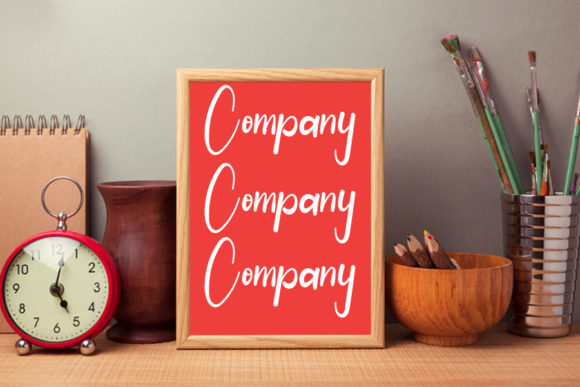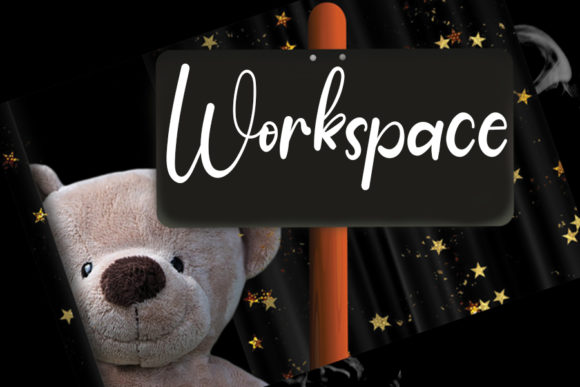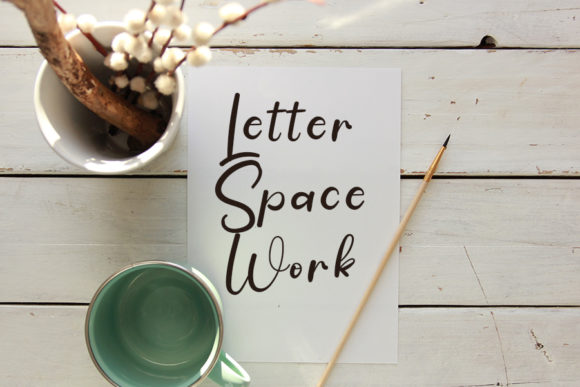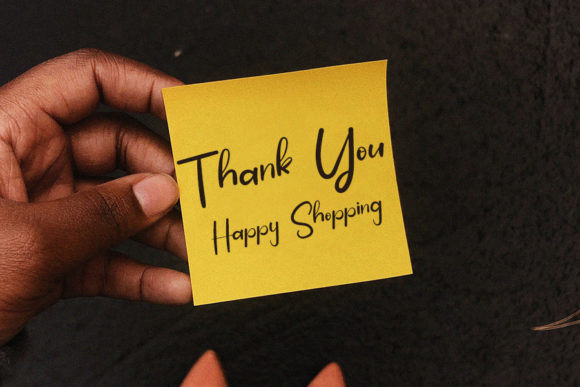
About Happy Wedding Font
Happy Wedding is a sweet and round lettered script font. Not too thin and not too thick, balanced and varied, this font was designed to enhance the beauty of your projects.